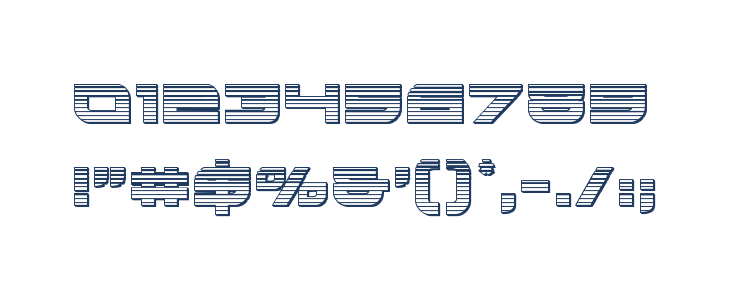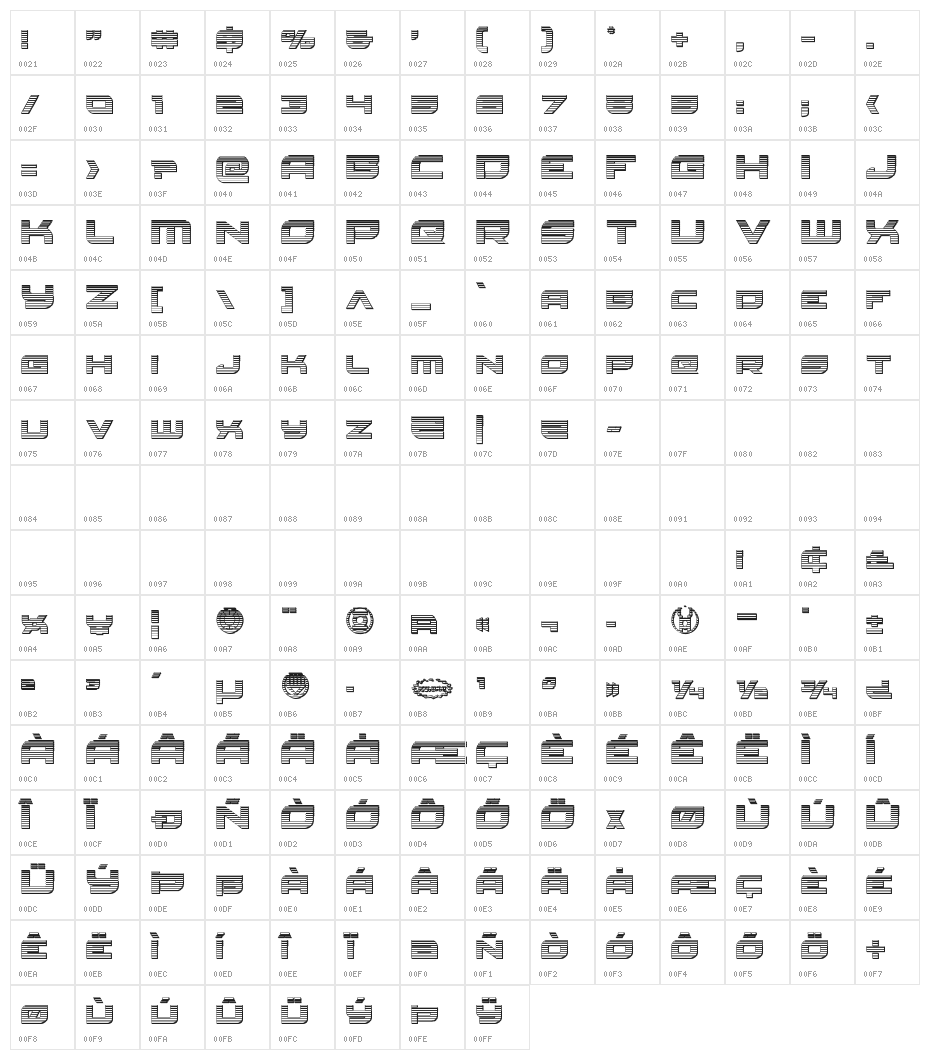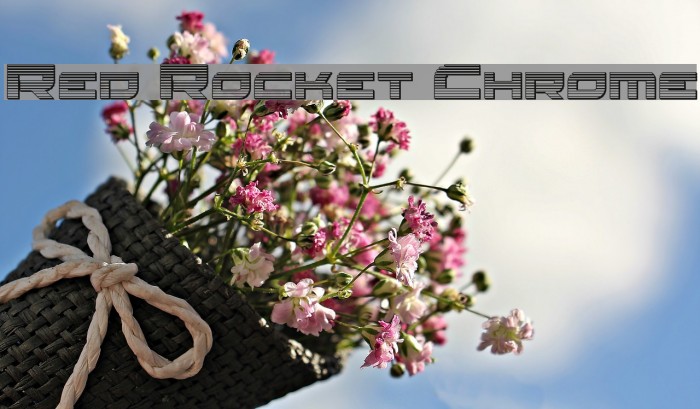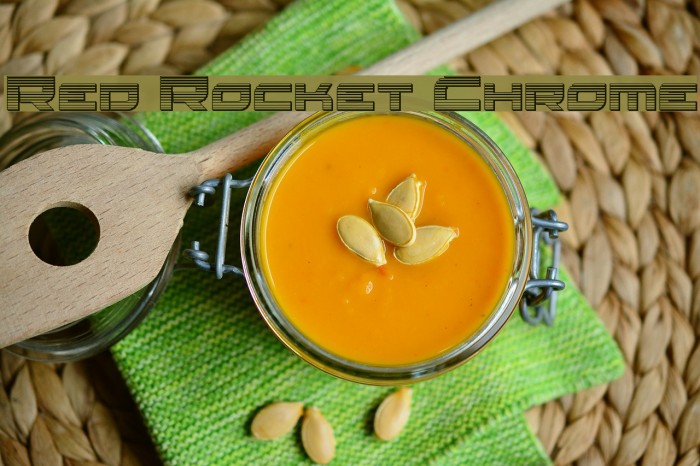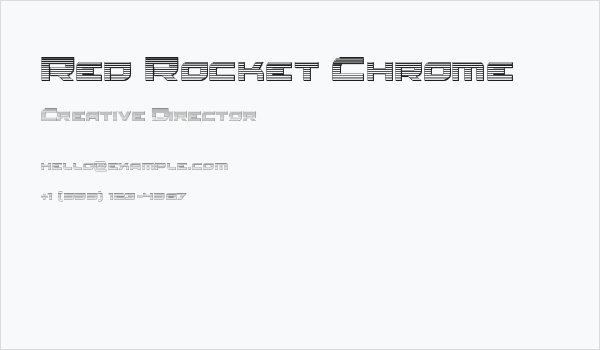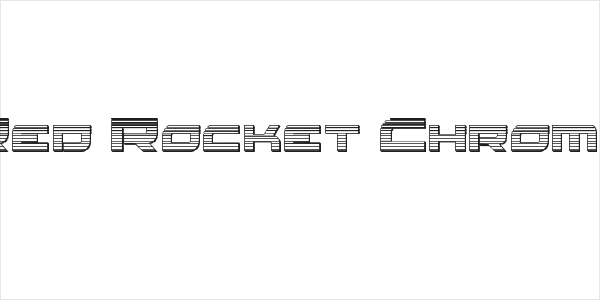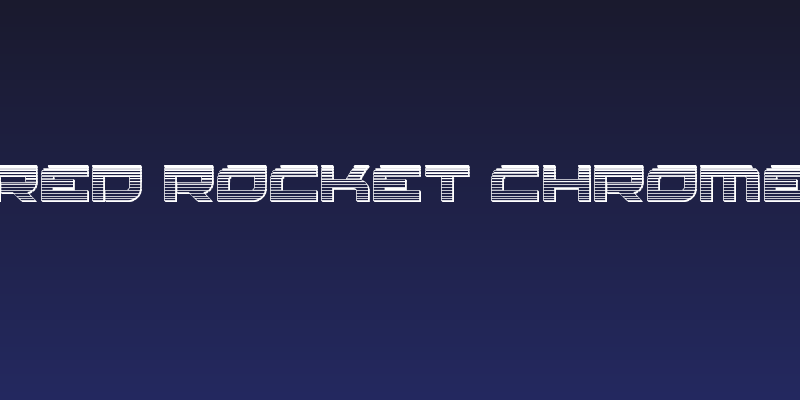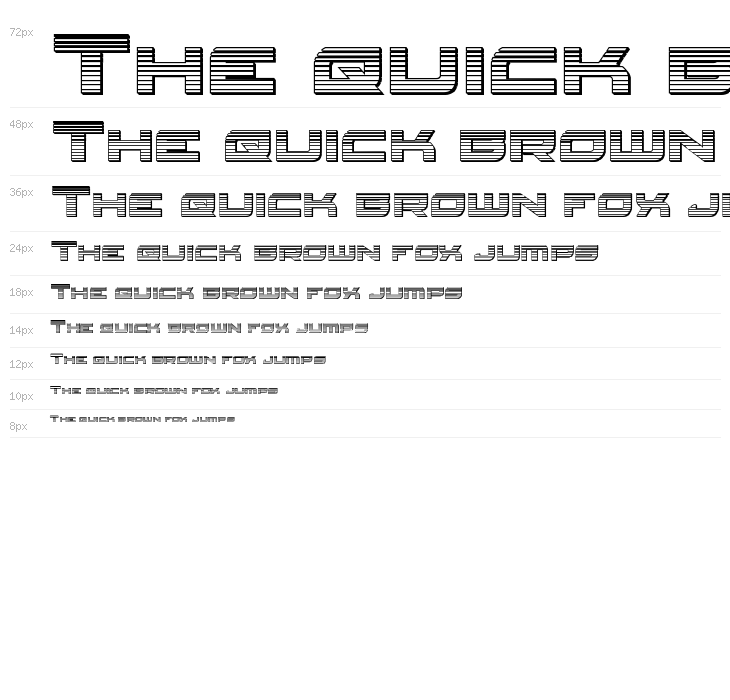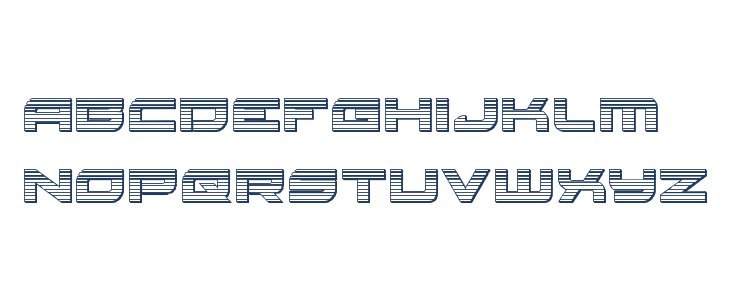
Red Rocket Chrome Font
Red Rocket Chrome Description
This font features a futuristic and dynamic design with a distinct chrome-like appearance. The characters are constructed with multiple parallel lines, creating a sense of depth and movement. The geometric shapes and sharp angles give it a modern and technological feel, making it ideal for projects that require a bold and eye-catching typeface. The uppercase and lowercase letters maintain a consistent style, while the numbers and special characters are designed to complement the overall aesthetic.
| Proposed Projects | Ideal for sci-fi themed designs, technology branding, video game titles, and futuristic posters. |